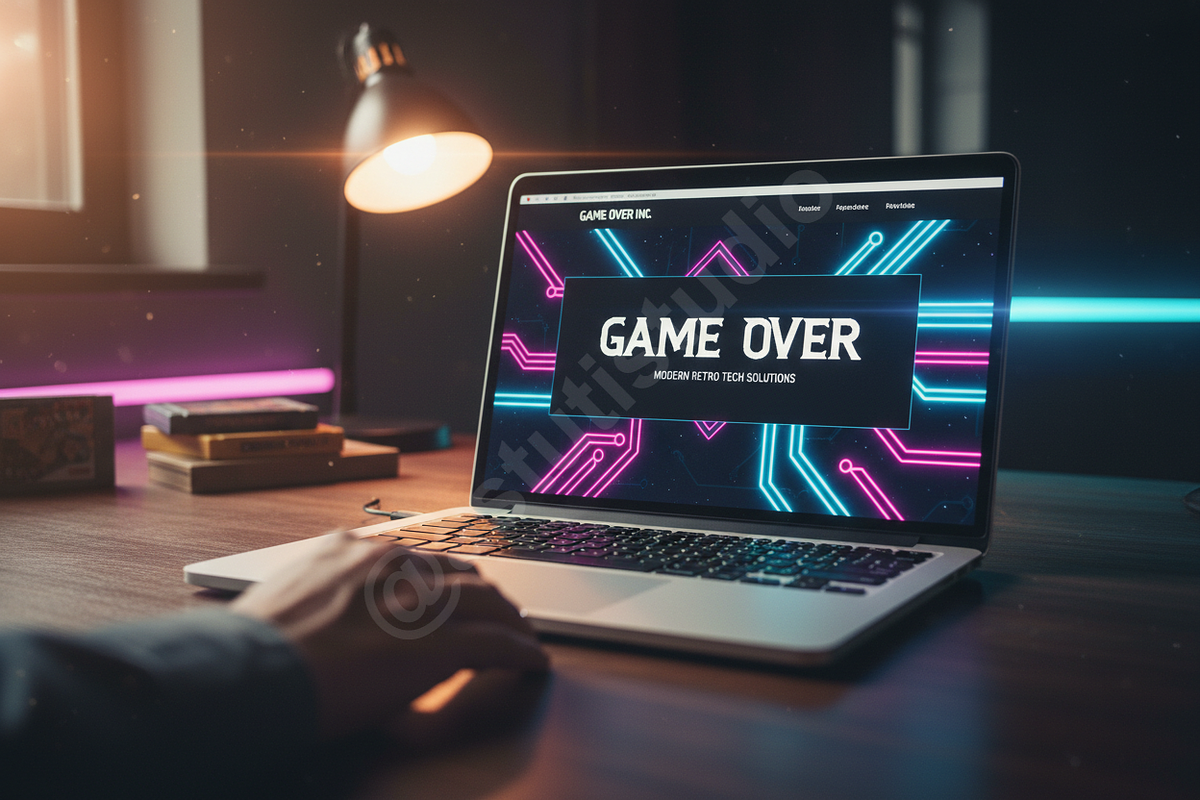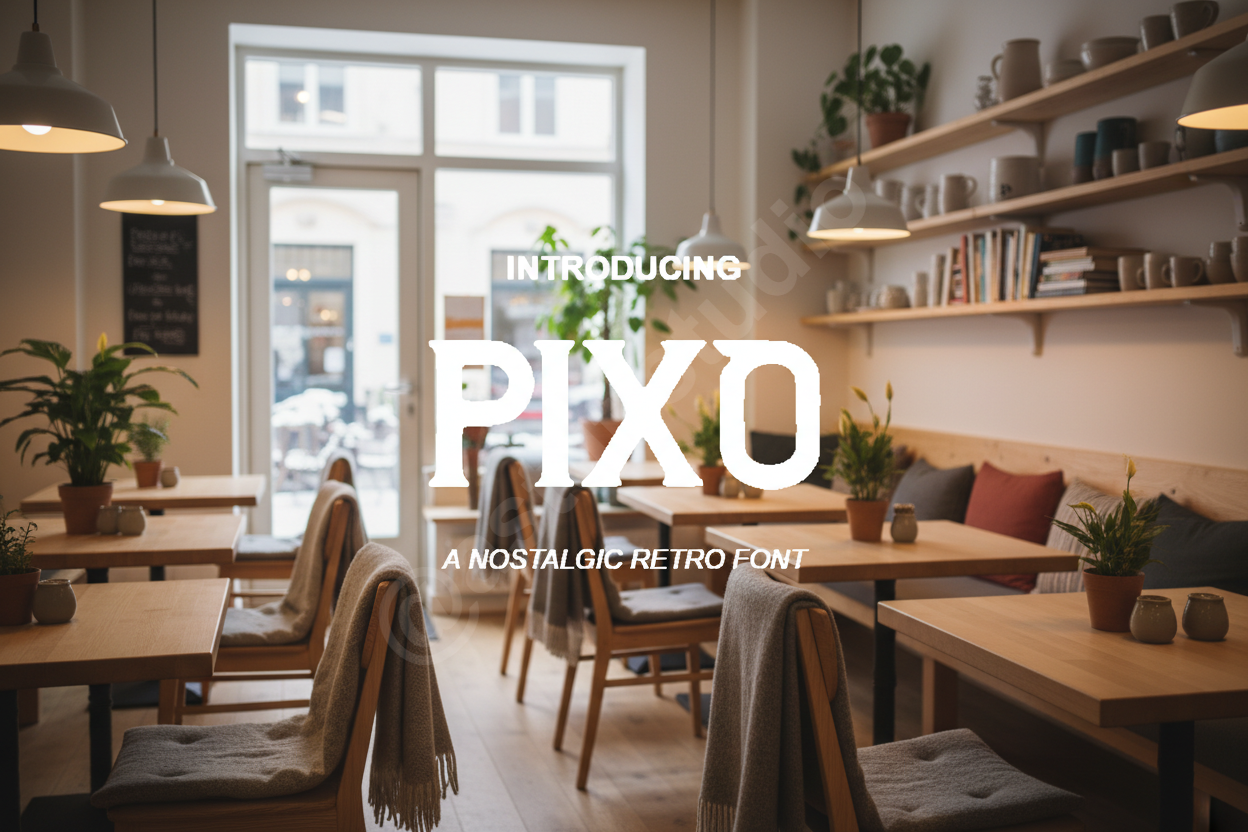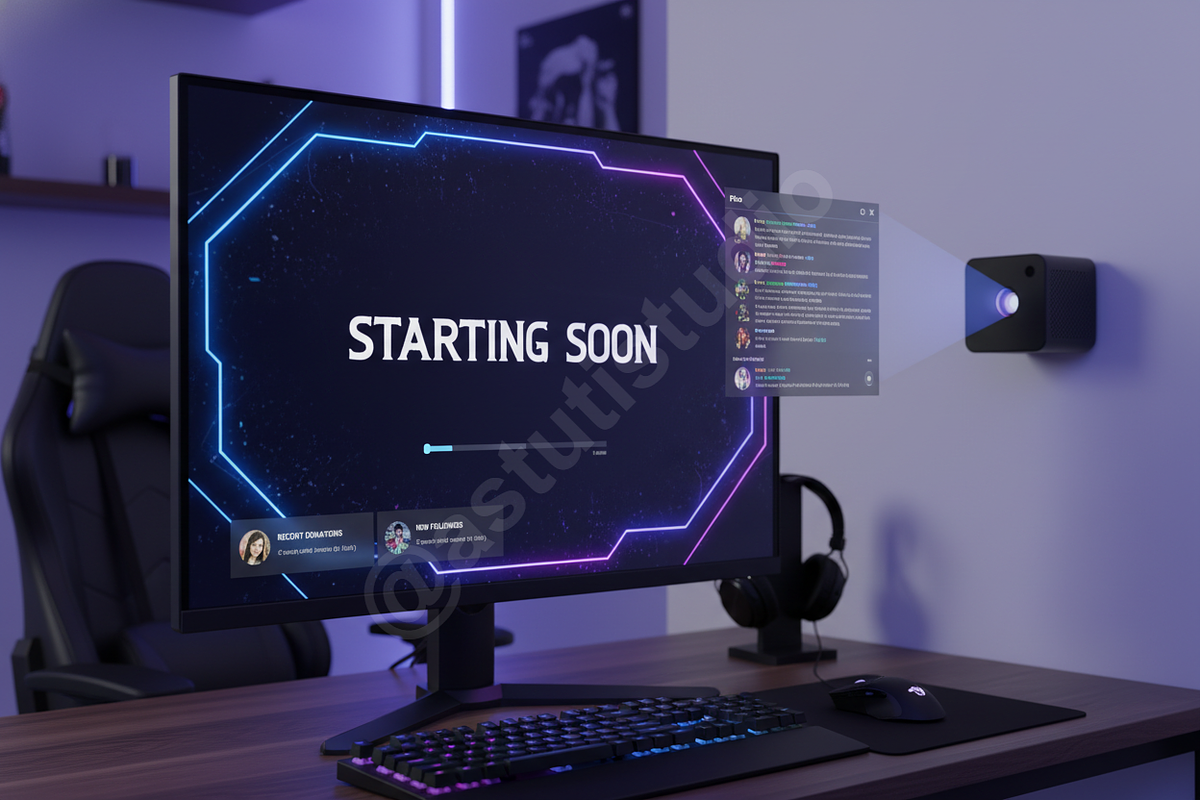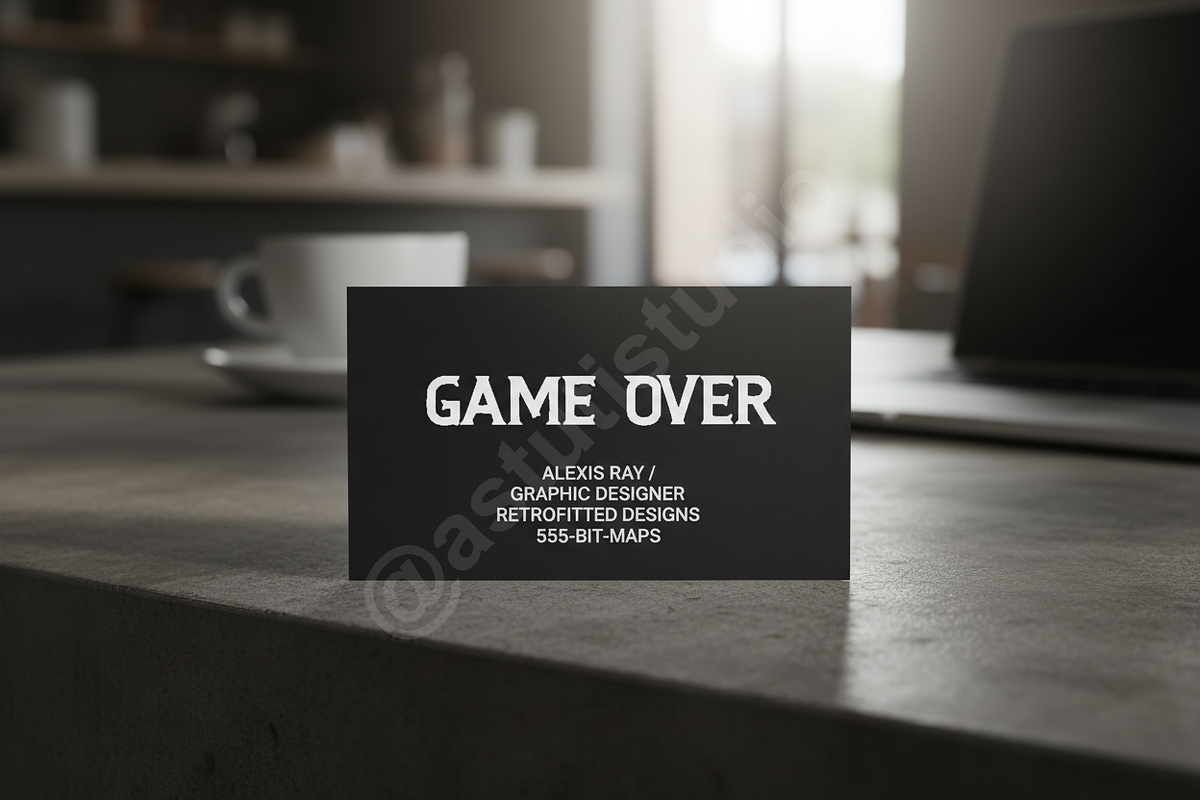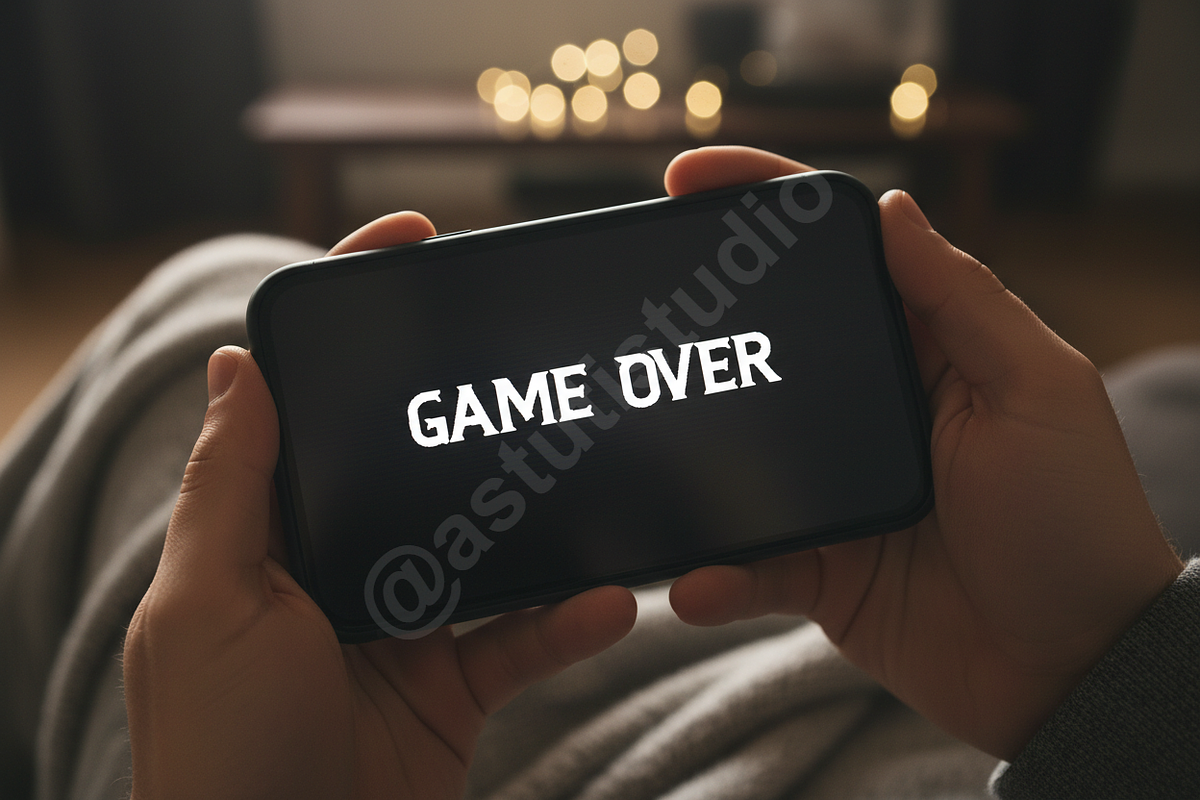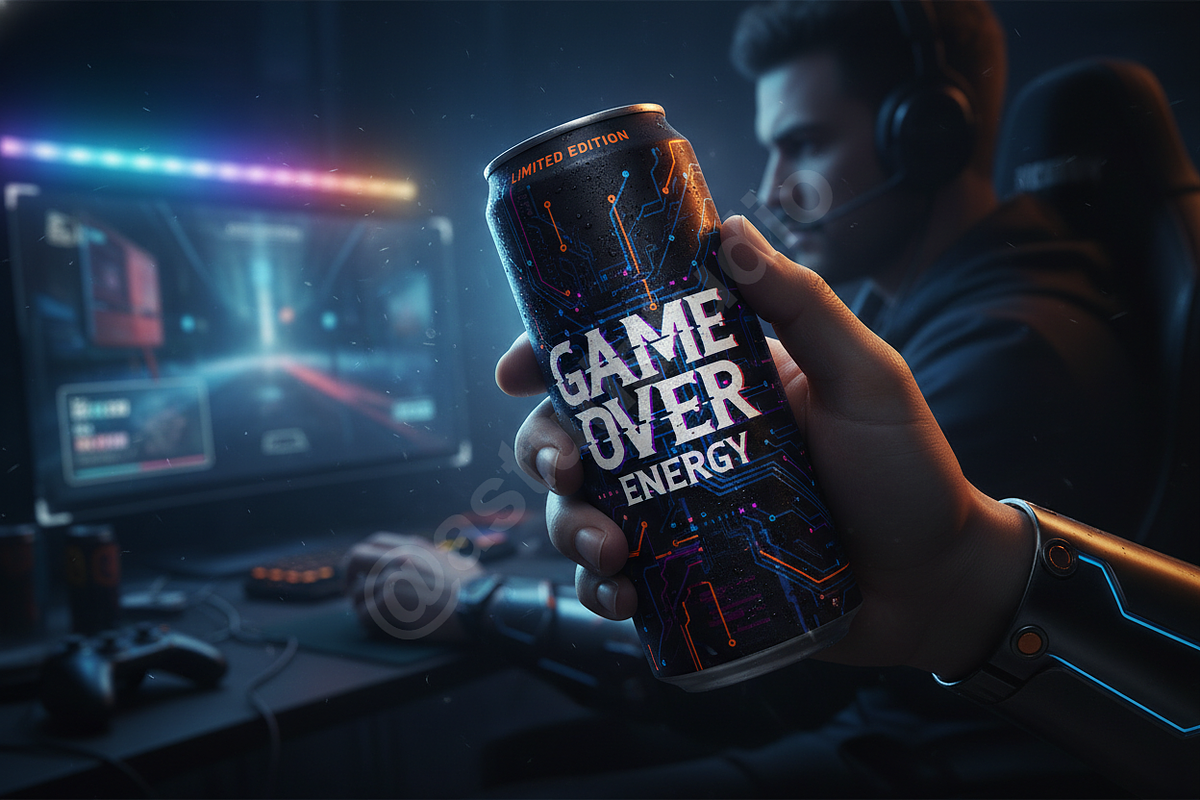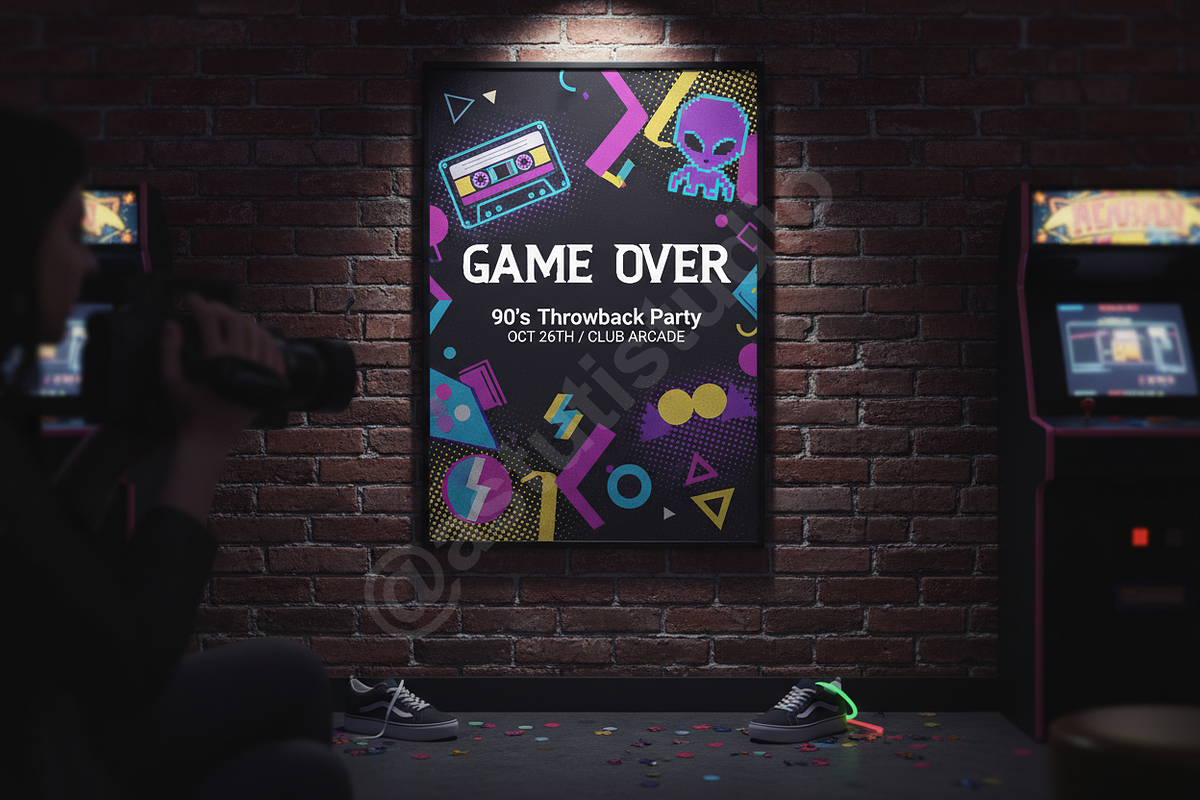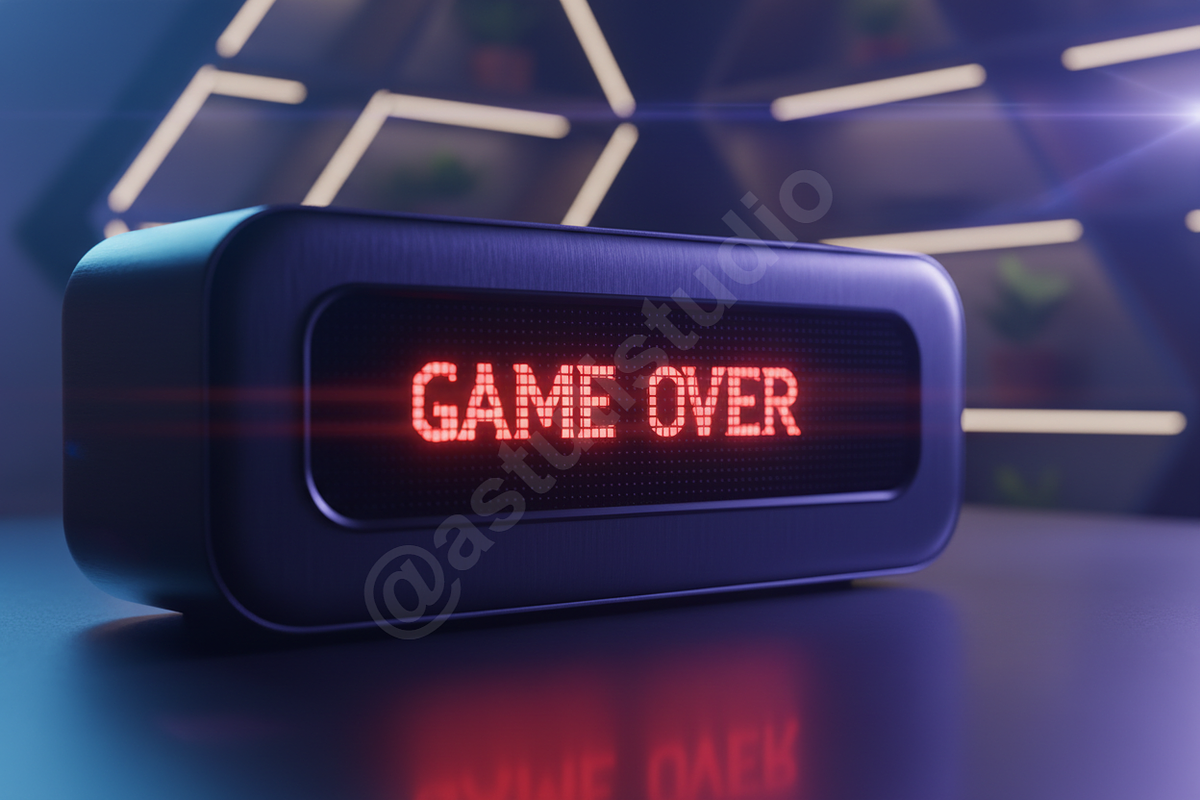
Pixo | Modern Luxury Serif Typeface
INTRODUCTION Pixo is a sophisticated serif typeface meticulously crafted for the modern aesthetic. It embodies a perfect harmony between timeless elegance and contemporary minimalism, making it the definitive choice for projects that require a touch of luxury and prestige.
IDEAL FOR
- Luxury Branding & Identity
- Editorial Layouts & Magazine Design
- High-End Social Media Content
- Wedding Stationery & Invitations
- Logo Design & Art Direction
- Elegant, high-contrast serif letterforms
- Unique custom ligatures for a bespoke feel
- Full multilingual character support
- Precise kerning and balanced proportions